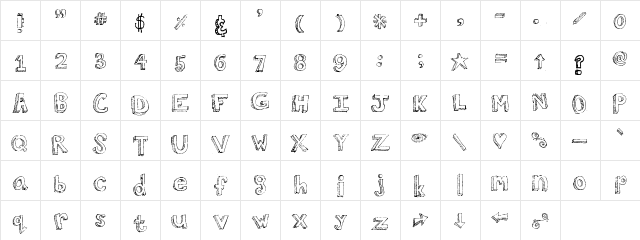
Walk Around the Block Regular
Design Context for Walk Around the Block Typeface
Walk Around the Block softens its letterforms with rounded terminals, giving it an approachable, friendly quality that works well in consumer-facing and digital contexts.
A natural fit for tech startups, health and wellness brands, children's products, and friendly consumer apps.
Font Pairing: Pairs well with a rounded or humanist sans for body copy, maintaining the friendly tone without relying on Walk Around the Block to carry extended reading.
Pro Tip: Pair Walk Around the Block with a geometric sans for a balanced system — the rounded softness works as a warm counterpoint to harder-edged companions.